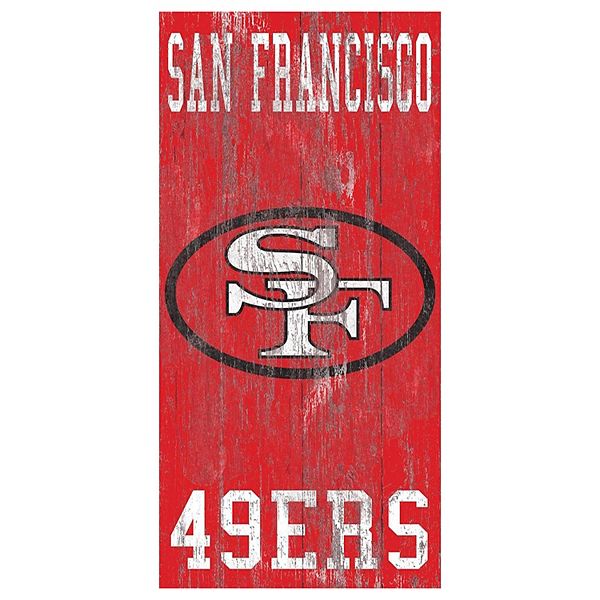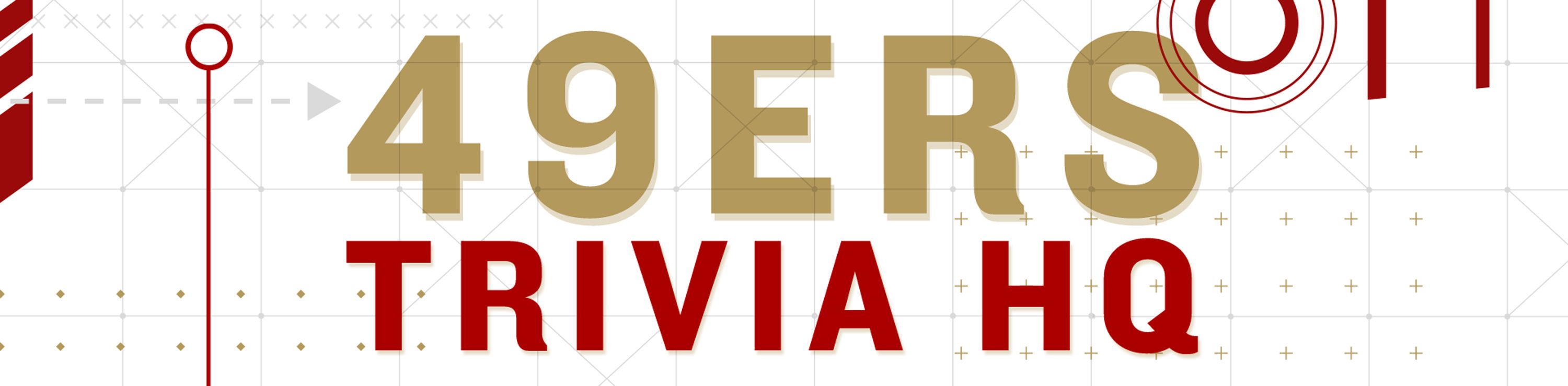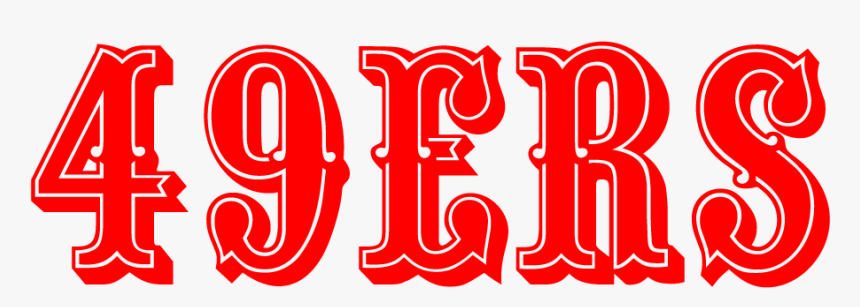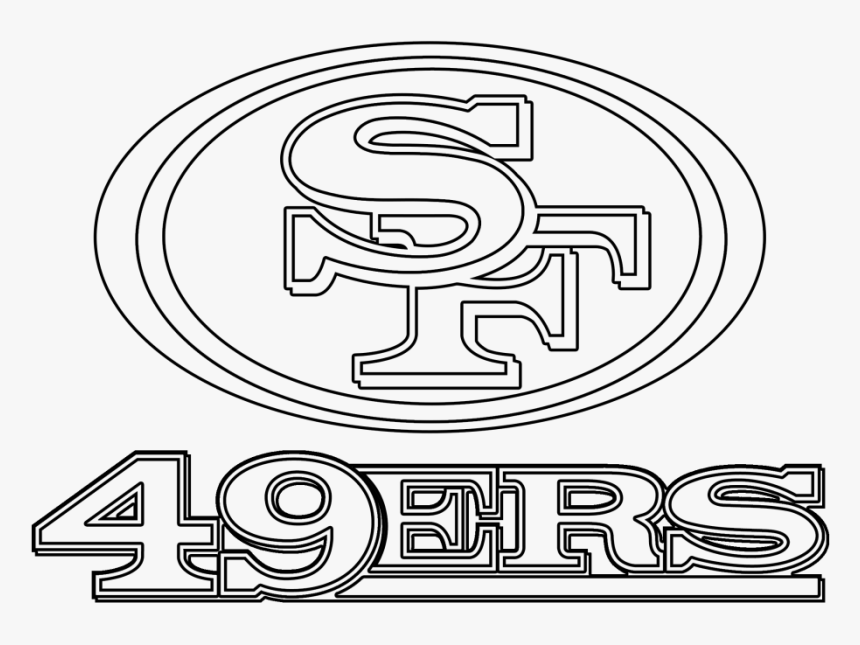
49ers Font Logo
The san francisco logo in 2009 went through some small changes regarding the color scheme.
Submit a font tools. San francisco 49ers logo black and white. I referenced the clarendon bold font which was very similar to the logo and made the necessary refinements to the letter forms.
Because a vast majority of the designers whiling to work along with this team logo as we as its font family. What font does san francisco 49ers use. Its name is quentin caps font a great retro font.